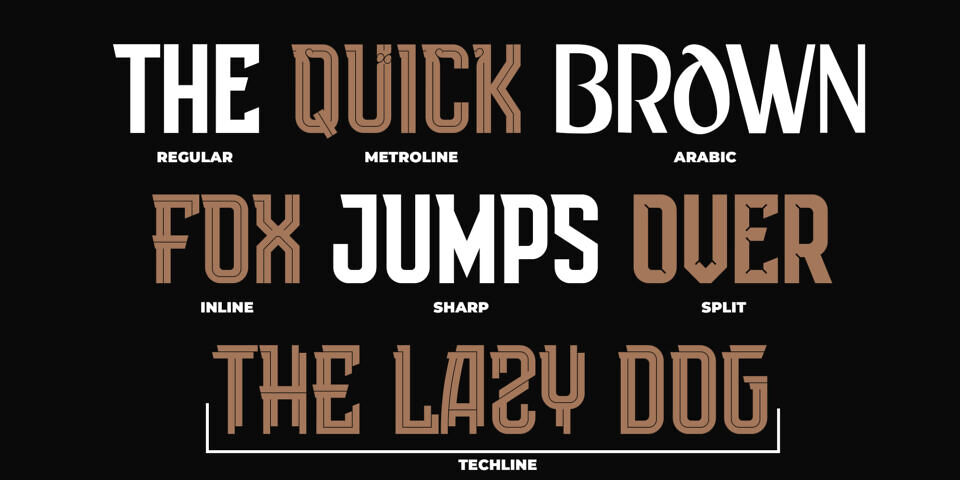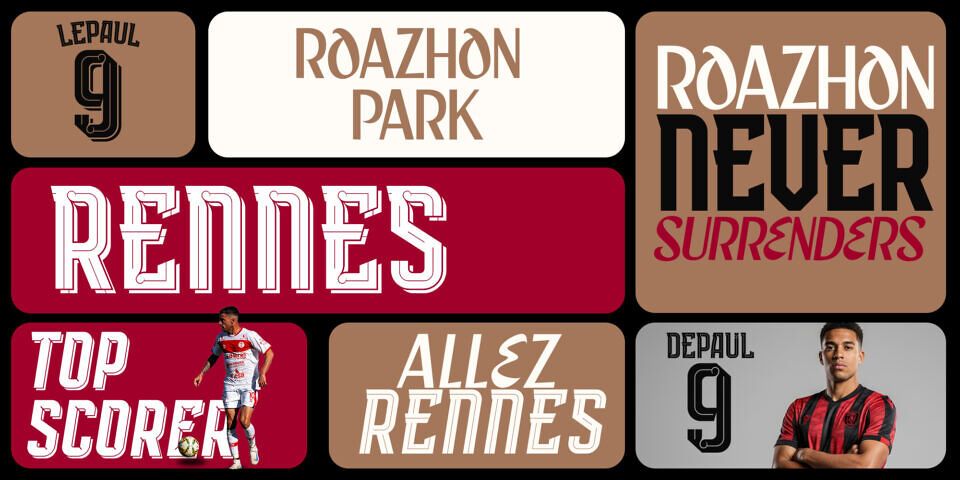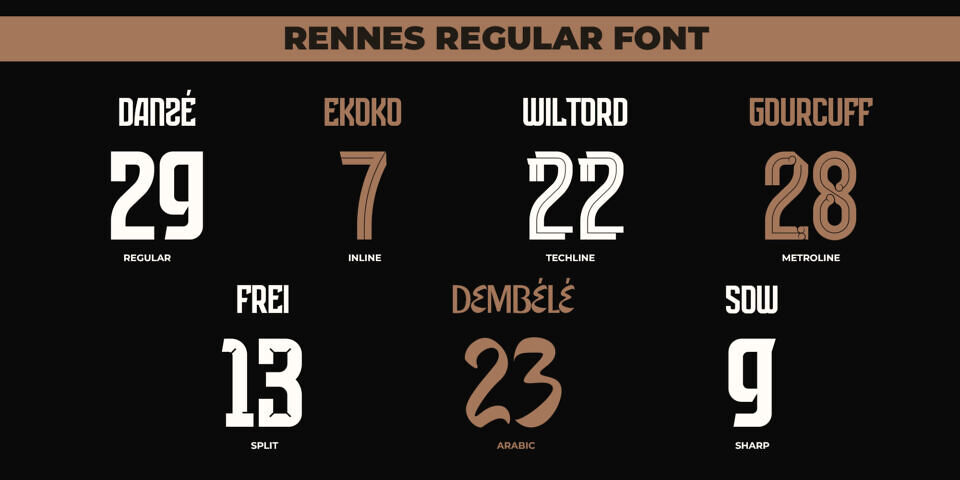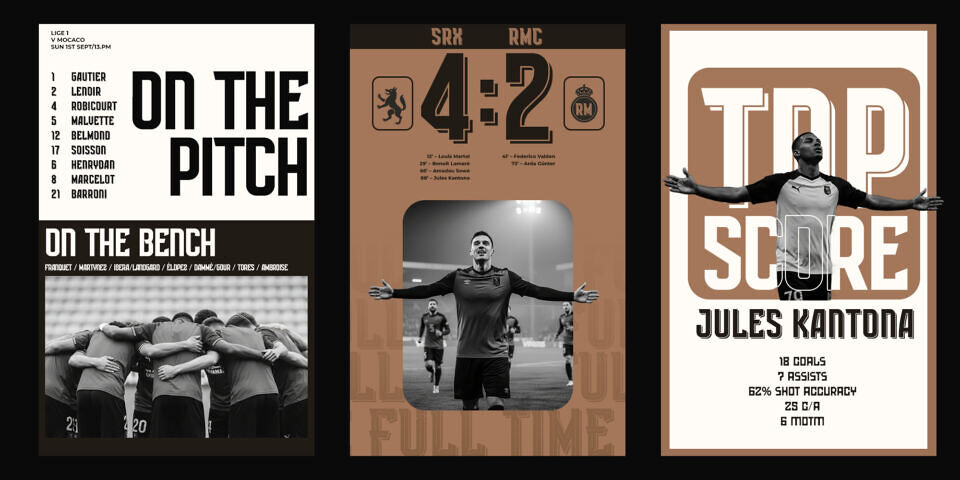
Rennes Font
Rennes Font Family is an athletic type system inspired by the bold identity of Stade Rennais and the visual strength of Bretagne. With sharp silhouettes and confident geometry, this typeface brings modern sports energy to any design.
Built for versatility, Rennes is perfect for:
• Sports branding & team identity
• Jersey numbers & match graphics
• Posters, headlines, and displays
• Apparel, merch, and lifestyle visuals
Every style reflects the spirit of Les Rouge et Noir — powerful, confident, and unmistakably Rennes. A typeface crafted for clarity, strength, and champions.